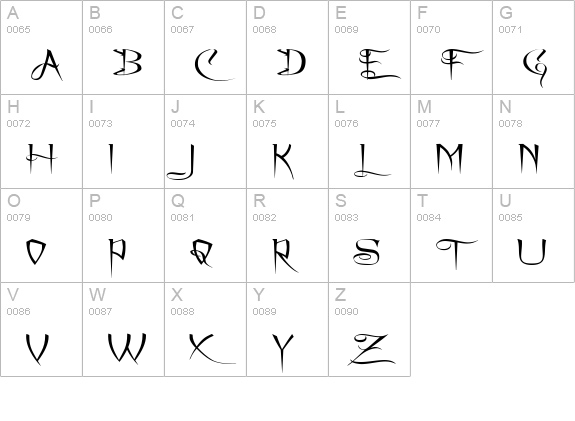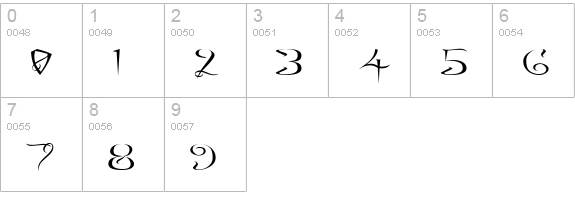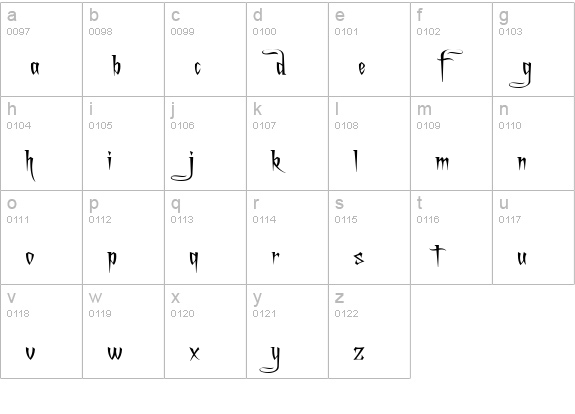
A Charming Font Expanded Font Details
A Charming Font Expanded is a distinctive, extended-width variant in the A typeface family \xE2\x80\x94 well suited to design and typography projects.
A Charming Font Expanded is a delightful and enchanting font that captivates with its elegant and elongated letterforms. This font exudes a sense of charm and sophistication, making it perfect for adding a touch of grace and allure to any creative project. With its expanded design, A Charming Font Expanded offers a unique and eye-catching appeal. The elongated letterforms provide a sense of elegance and fluidity, making it ideal for headlines, titles, and other prominent design elements. Whether you're designing a wedding invitation, a magazine cover, or a logo, this font will effortlessly elevate your creations to new levels of charm and sophistication. What makes A Charming Font Expanded even more appealing is that it is freely available to download at FontsMarket.com. This means that you can effortlessly add this beautiful font to your collection without spending a dime. With just a few clicks, you can enhance your design projects with the timeless elegance and charm of A Charming Font Expanded. Embrace the enchanting allure of A Charming Font Expanded and watch as your designs come to life with a touch of grace and elegance. Download this captivating font for free at FontsMarket.com and unlock a world of design possibilities. Let your creativity soar with A Charming Font Expanded and create truly charming and captivating designs that leave a lasting impression.